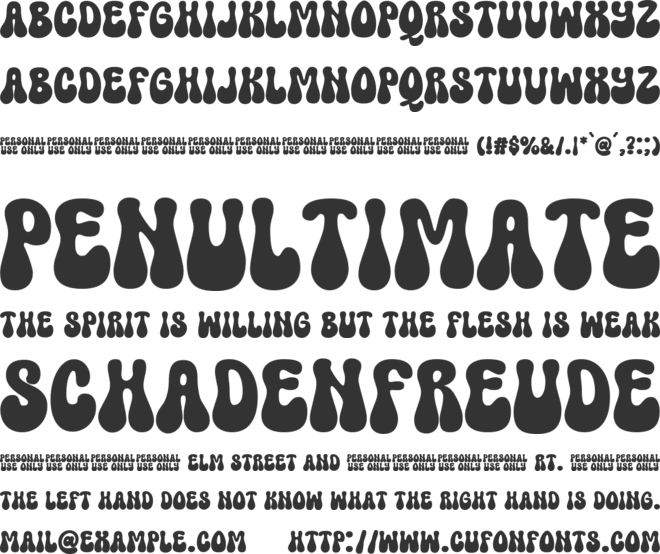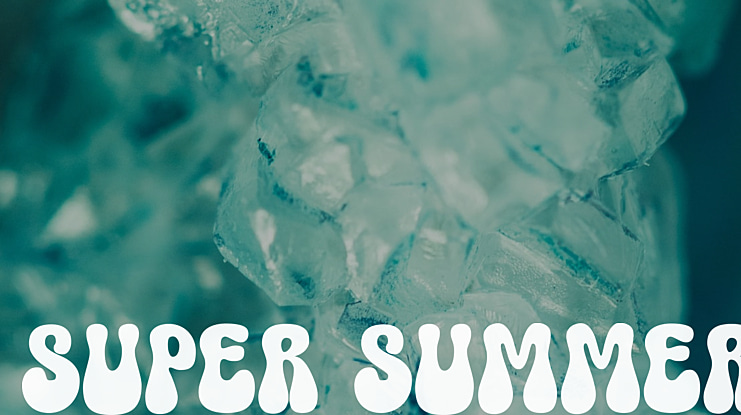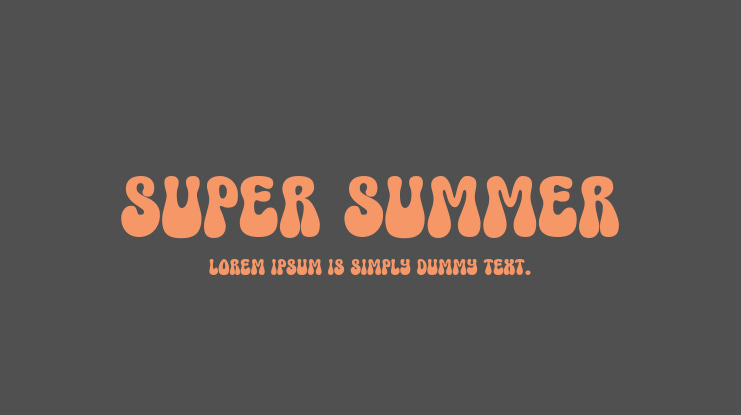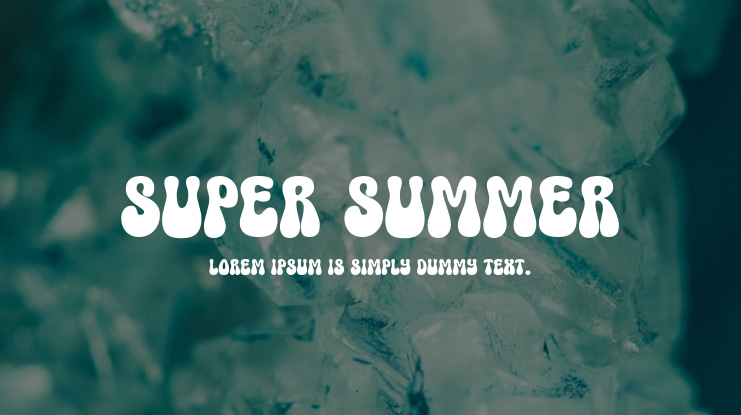
Super Summer Font
Super Summer is a groovy, retro, all-caps font that is perfect for adding a touch of fun and nostalgia to your designs. With its bold, rounded shapes and vintage-inspired flair, Super Summer is sure to catch the eye and make your message stand out.